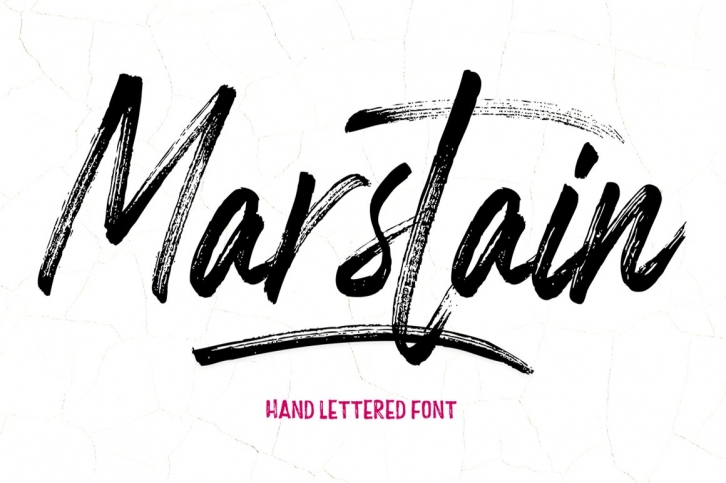
Marstain is a trendy and unique font with an authentic style. It was designed by Stripes Studio and it's a great choice for creative people who need such a font. It was released on April 24, 2020 and the file size is 18.56 MB. Marstain will add an organic vibe to any design idea!